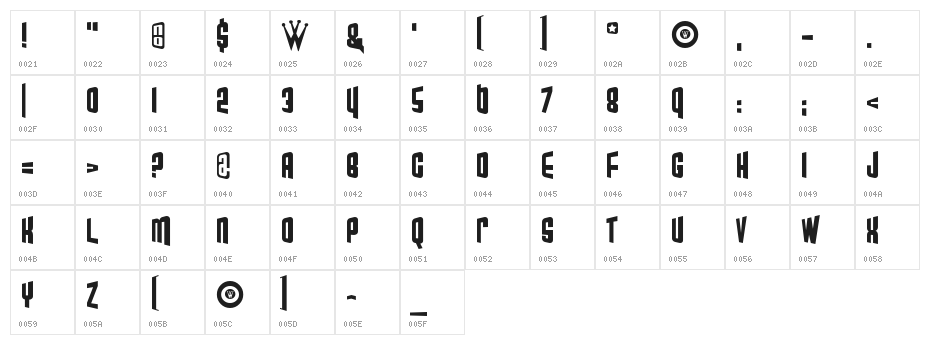
Mod Guitars Font
Mod Guitars Description
This font features a bold, geometric design with a modern and edgy aesthetic. The characters are tall and narrow, with sharp angles and a consistent stroke width that gives it a strong, impactful presence. The uppercase and lowercase letters maintain a uniform style, enhancing the font's cohesive look. Numbers and special characters are designed to match the boldness and geometric nature of the alphabet, making it suitable for attention-grabbing headlines or logos. The font's unique style is reminiscent of retro-futuristic designs, making it ideal for projects that require a modern yet nostalgic feel.